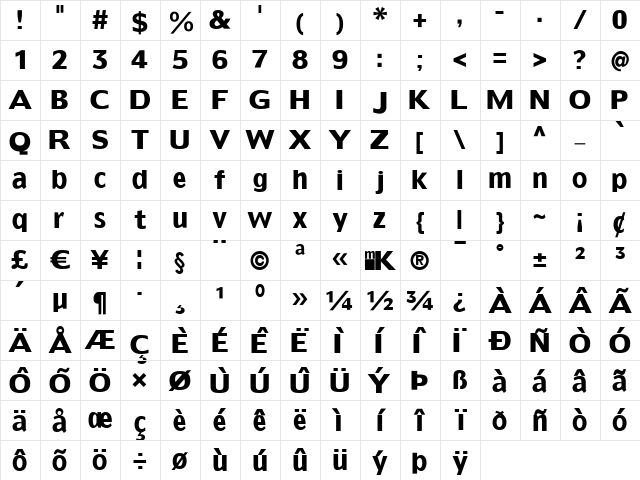
SansFat Regular
Design Context for SansFat Typeface
SansFat takes a measured approach to typography — its balanced proportions and neutral character make it a reliable workhorse for both digital and print work.
Pro Tip: Use SansFat in both headline and body roles to test its range before committing to a single application.